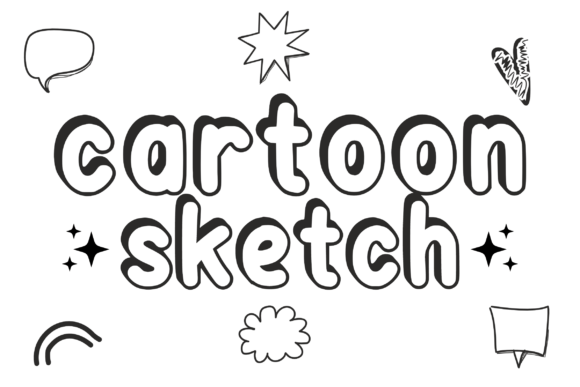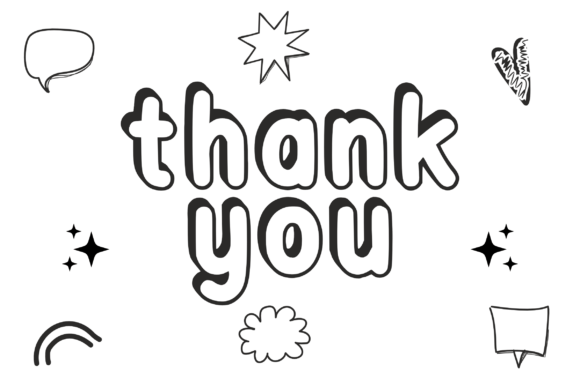
Introduction to Comic Sketch Font
Introducing “Comic Sketch” is a cute and modern comic outline font; each character is cheerful, so it is easy to recognize.
Perfect for sublimation design of t-shirts, mugs, tote bags, animations, comic titles, invitations, greeting cards, and more Pour your imagination with it.
Key Features of Comic Sketch Font
Why Choose Comic Sketch Font?